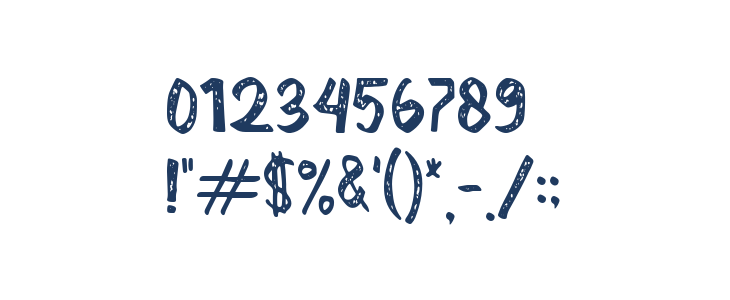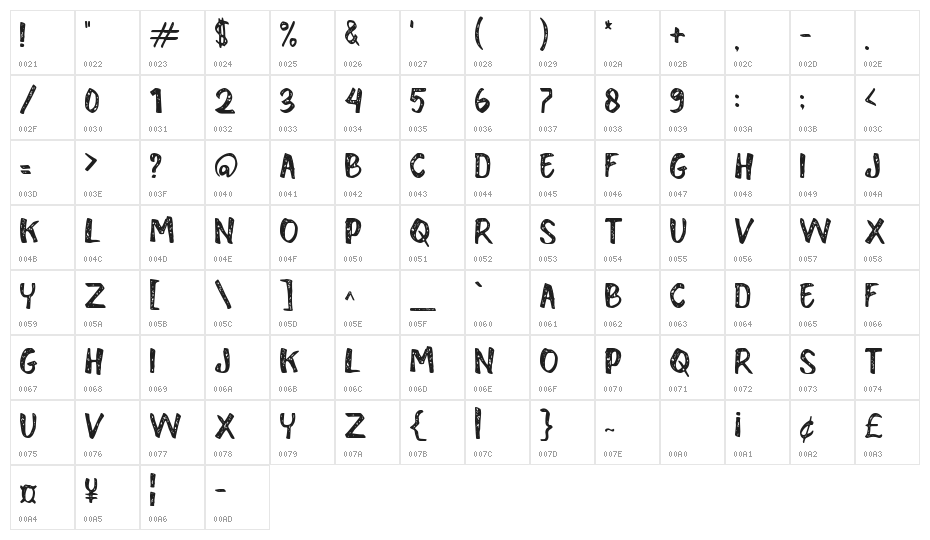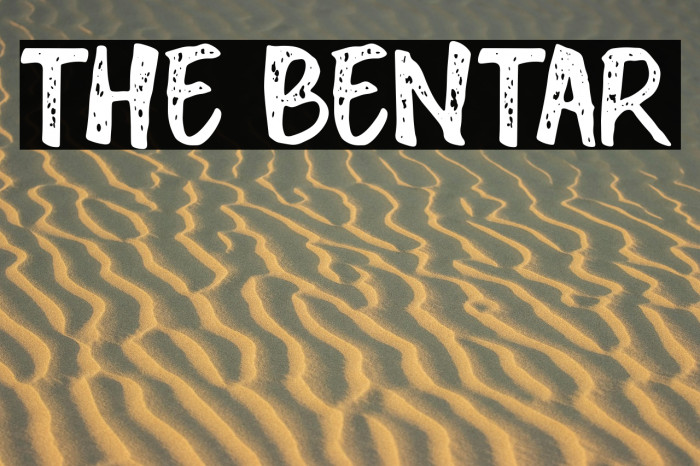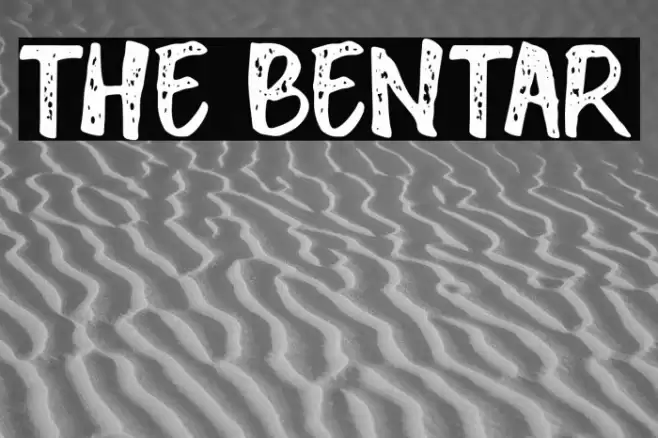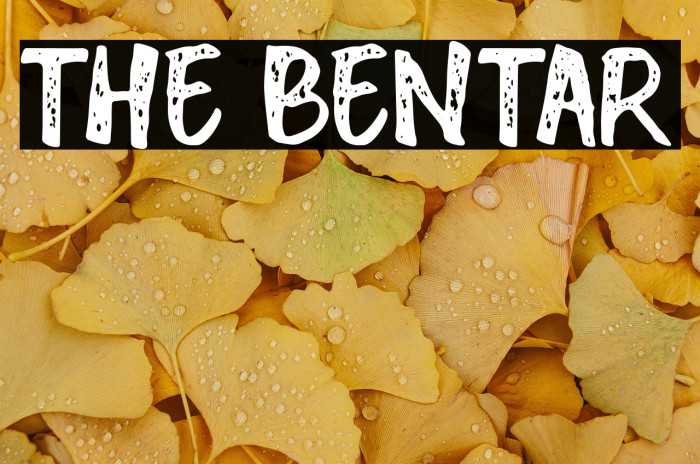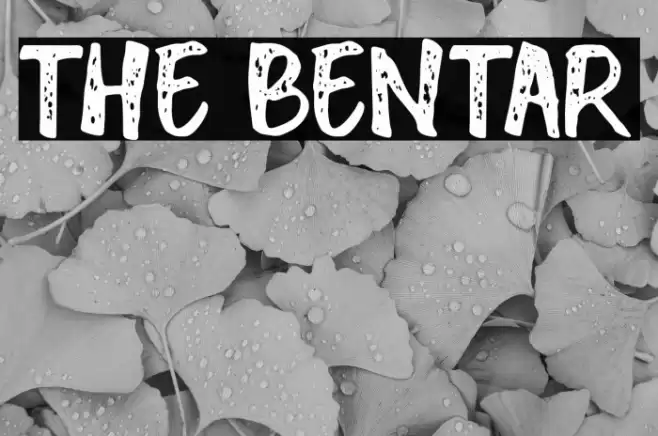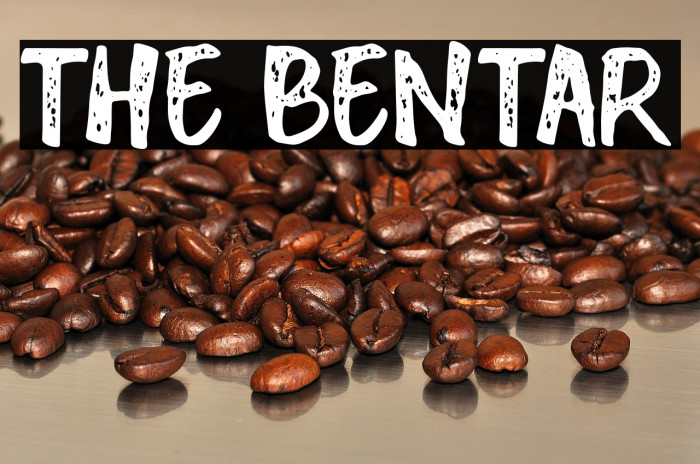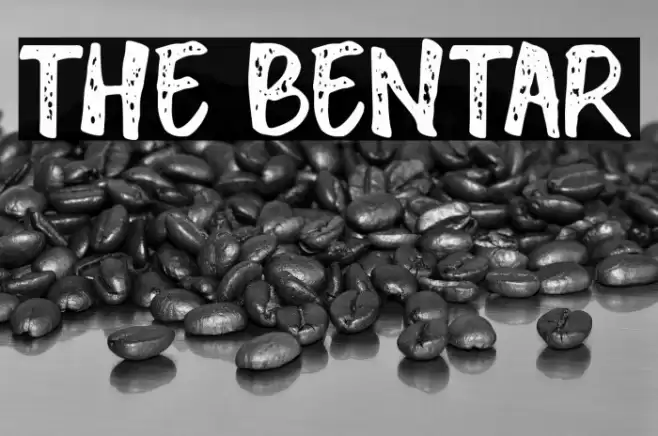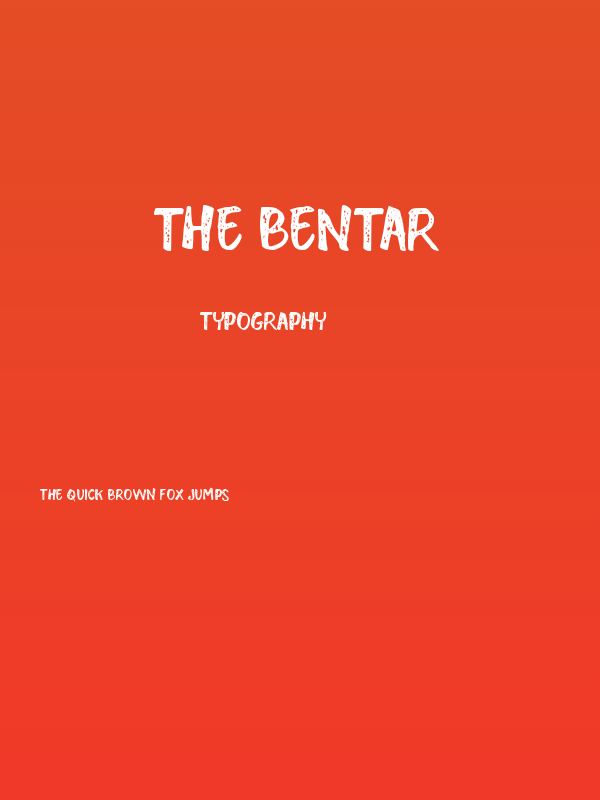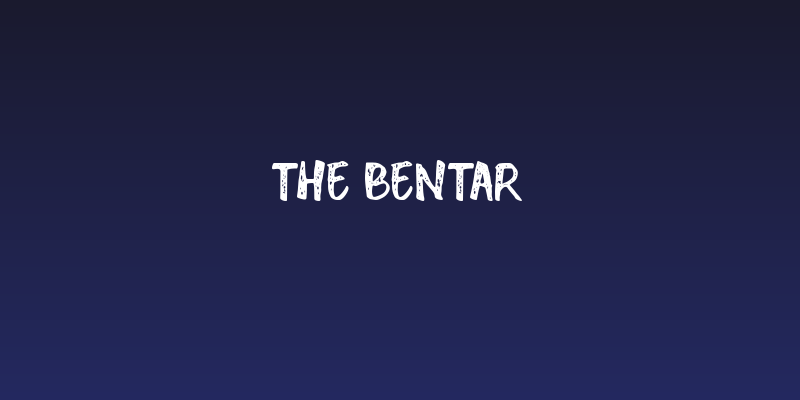
THE BENTAR Font
THE BENTAR Description
This font features a playful and bold design with a hand-drawn aesthetic. Each character is filled with irregular dots and textures, giving it a unique and artistic appearance. The uppercase and lowercase letters maintain a consistent style, with rounded edges and a slightly uneven baseline that adds to its charm. The numbers and special characters follow the same playful theme, making it suitable for creative and informal projects. Its distinct style makes it stand out, perfect for designs that require a touch of whimsy and creativity.
| Overall Style | Playful, Artistic |
| Proposed Projects | Ideal for children's books, playful branding, posters, and creative invitations. |